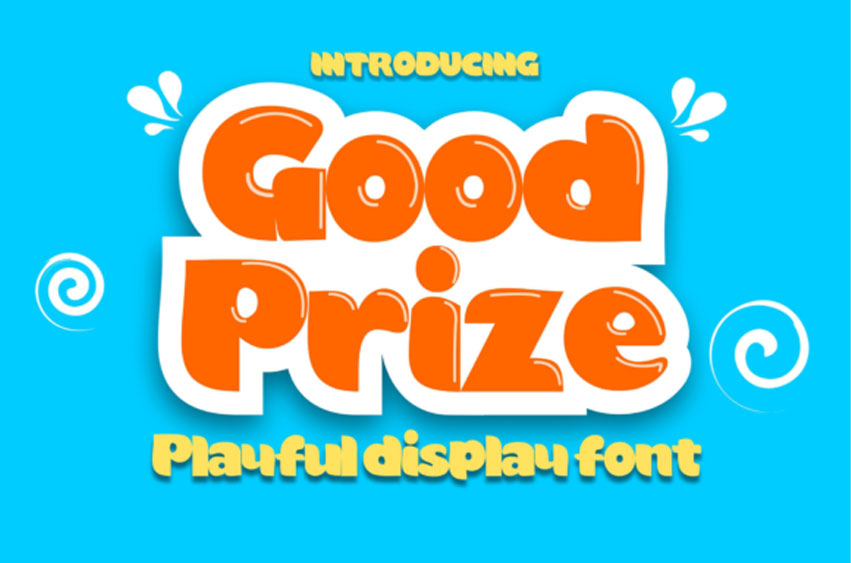
Good Prize Font
Good Prize Font is a playful and chunky charactered display font.
Get inspired by its unique feel, and brighten up any school or kids project!